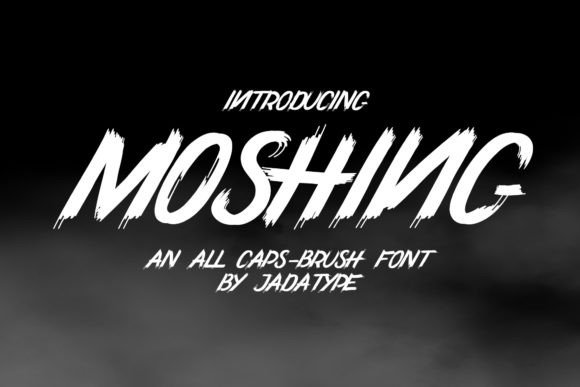
Experience the electrifying world of Moshing Font, a display typeface that ignites your designs with raw energy. Its dynamic brushed lines dance across your screen, creating an instant visual impact that captivates audiences.
Unleash your creativity with Moshing Font's versatility. Whether you're crafting eye-catching headlines, vibrant t-shirt designs, or immersive social media posts, this font empowers you to make a statement. Its distinctive style adds a touch of edginess to product branding, while its bold presence elevates crafts and advertising campaigns.
Moshing Font is your go-to choice for designs that demand attention. Its bold strokes command a presence that will leave a lasting impression. Let your imagination soar as you explore the endless possibilities this font offers.